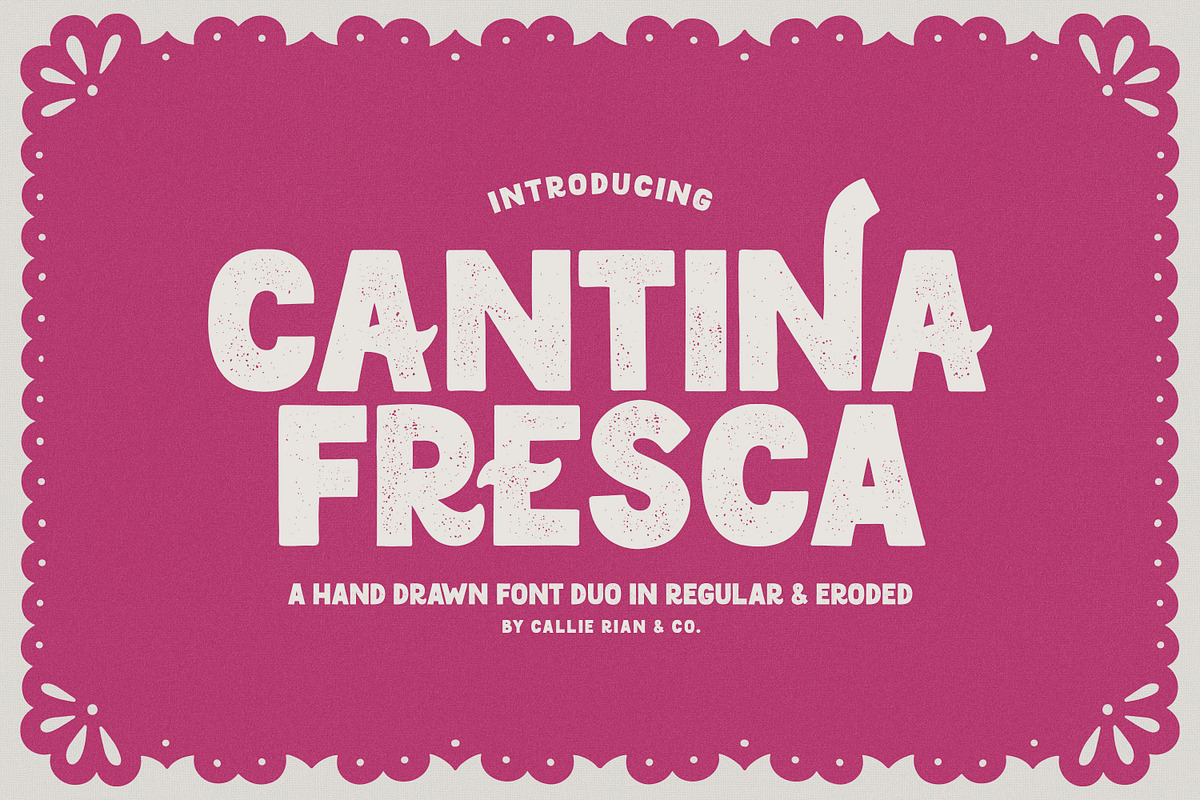
Step into the world of raw, handcrafted design with Cantina Fresca — a bold, hand-lettered display typeface that’s been meticulously crafted from start to finish. Every single glyph was drawn by hand, outlined with pen, scanned with precision, and refined in Procreate to ensure the perfect balance of edge, thickness, and character. This isn’t a digital imitation of handwriting — it’s authentic, tactile, and alive with imperfections that make your design feel real, bold, and unmistakably human.
Four Dynamic Versions for Unmatched Creative Freedom
Master the Mood with Smooth, Eroded, and Italic Variants
Cantina Fresca comes in four distinct versions to match your creative vision:
- Regular (Smooth) — Clean, sharp, and professional. Ideal for crisp headlines and high-impact posters.
- Italic (Smooth) — Adds elegance and motion, perfect for storytelling or branding with a poetic edge.
- Eroded — Embraces weathered authenticity. Think vintage signage, graffiti, or a rustic festival vibe.
- Eroded Italic — The ultimate gritty charm. For designs that demand attitude, grit, and raw emotion.
Each variant maintains the soul of the original hand-drawn art while adapting to modern digital use — you get the feel of a real hand-lettered piece, with the precision of digital typography.
Unlock Hidden Details: Ligatures & Alternates
Access Custom Glyphs via the Glyphs Panel
- Uppercase Ligatures — Combine letters like “F” and “A” into a single, flowing glyph for added flair.
- Alternate Characters — Swap out standard glyphs for unique, expressive versions that add visual intrigue and storytelling depth.
- Foreign Glyph Support — Fully supports international characters, so your message can travel the world without breaking.
These features aren’t just decorative — they’re functional tools that let you craft a personalized, one-of-a-kind typographic experience.
Bring Your Design to Life with Vintage Block Print Elements
For extra punch, Cantina Fresca includes **nine high-quality block print vector elements** — perfect for adding texture and dimension to your designs. Whether you’re designing:
- Magazine covers — Turn your headlines into editorial events.
- Posters and flyers — Add a vintage, printed feel that commands attention.
- Logos and brand identities — Create a signature look that stands apart from the digital crowd.
- Greeting cards & invitations — Infuse warm, handmade charm into every message.
- Quote art & digital prints — Make your words feel alive with texture and movement.
In a world of perfect, machine-generated fonts, Cantina Fresca stands out as a breath of authentic, hand-driven design. It’s not flawless — it’s **intentionally imperfect**. And that’s what makes it powerful. Every stroke carries emotion. Every curve tells a story. This is typography with character, not just function.
Perfect for Bold, Emotional, and Story-Driven Projects
Use Cantina Fresca when you want your design to feel:
- Authentic — Like it was made by a real person, not a machine.
- Memorable — A font people will recognize and remember.
- Emotive — To match the tone of a story, brand, or mood.
From food branding and cultural festivals to artist collections and personal projects — this font delivers.